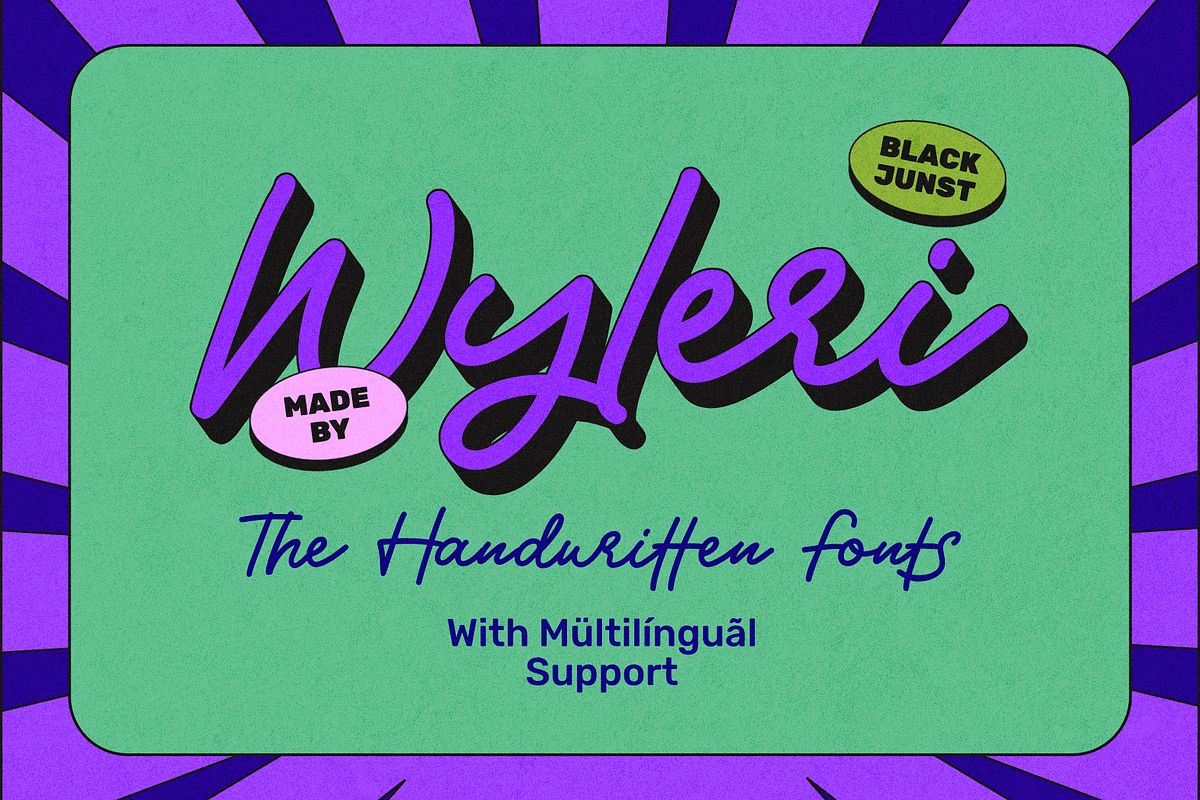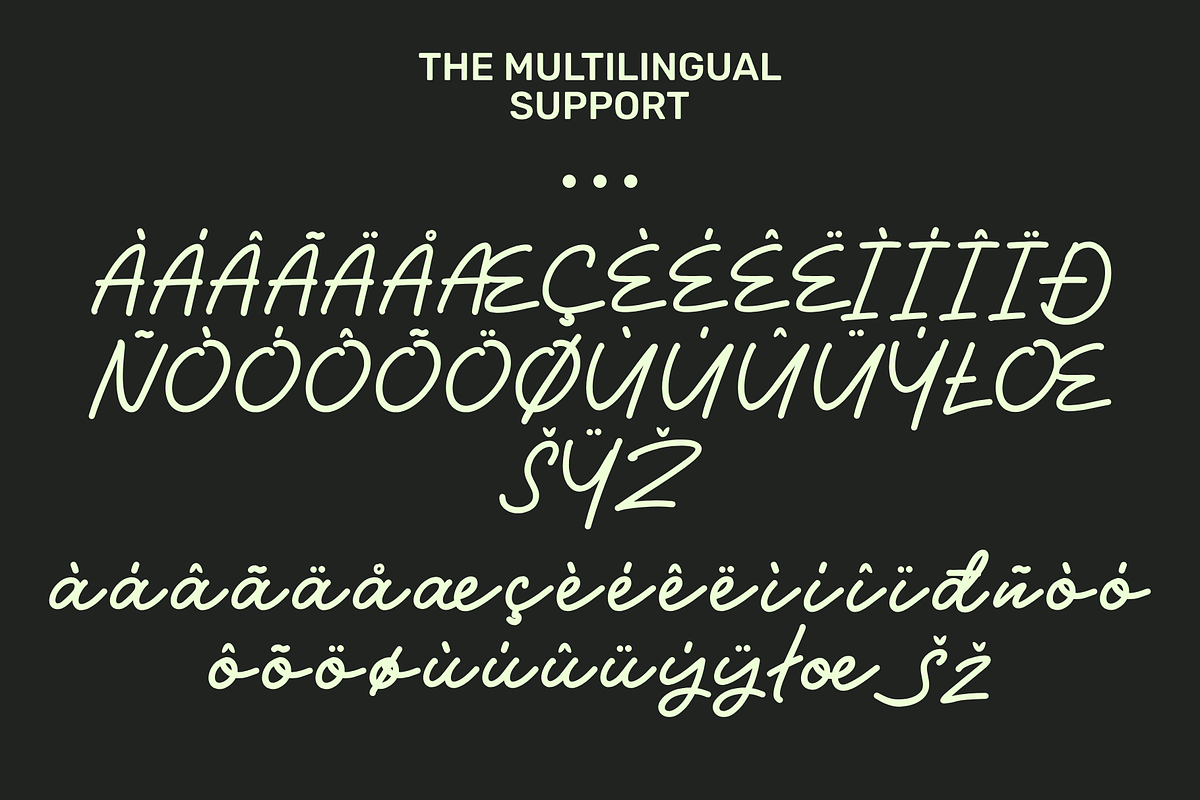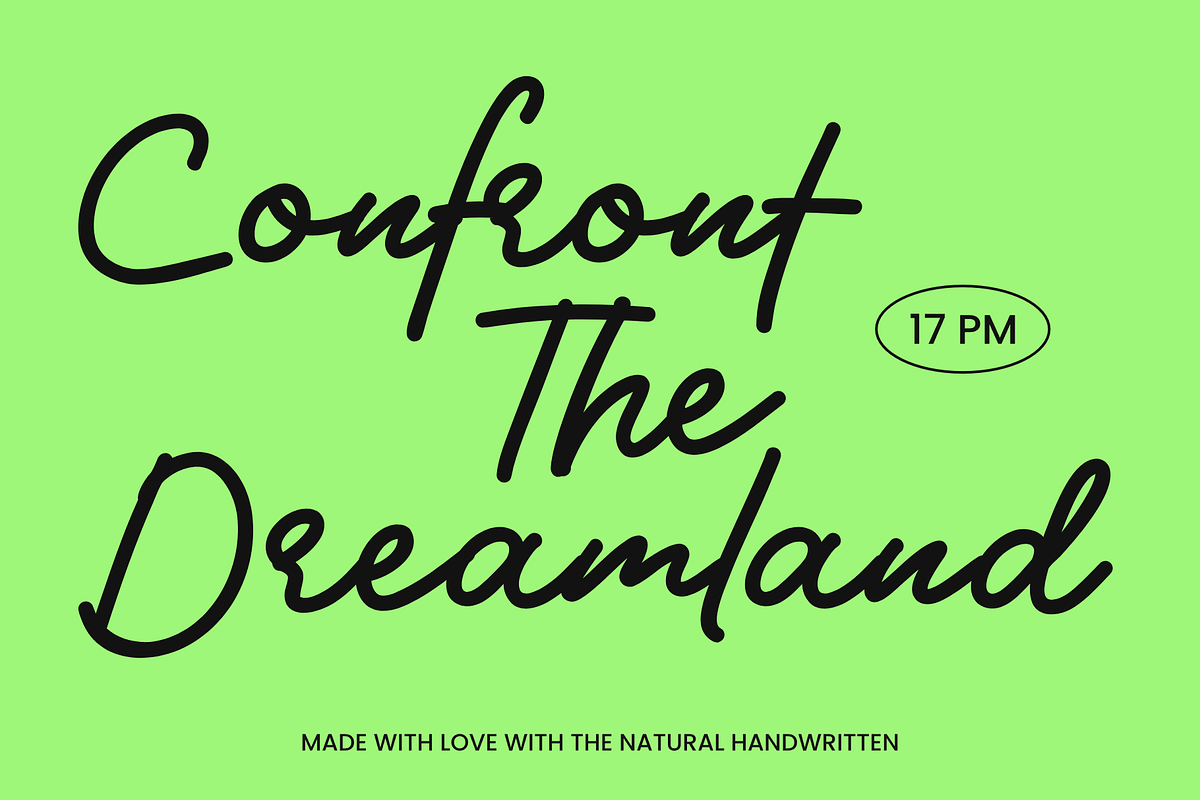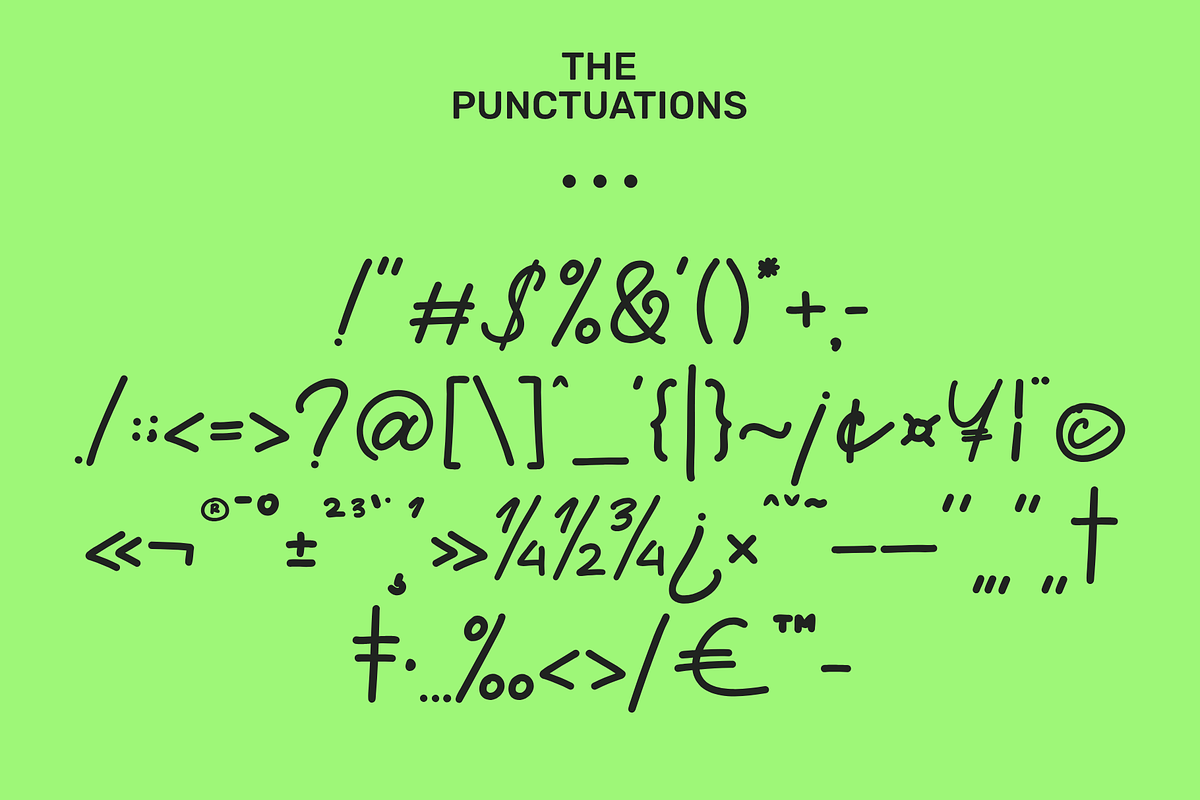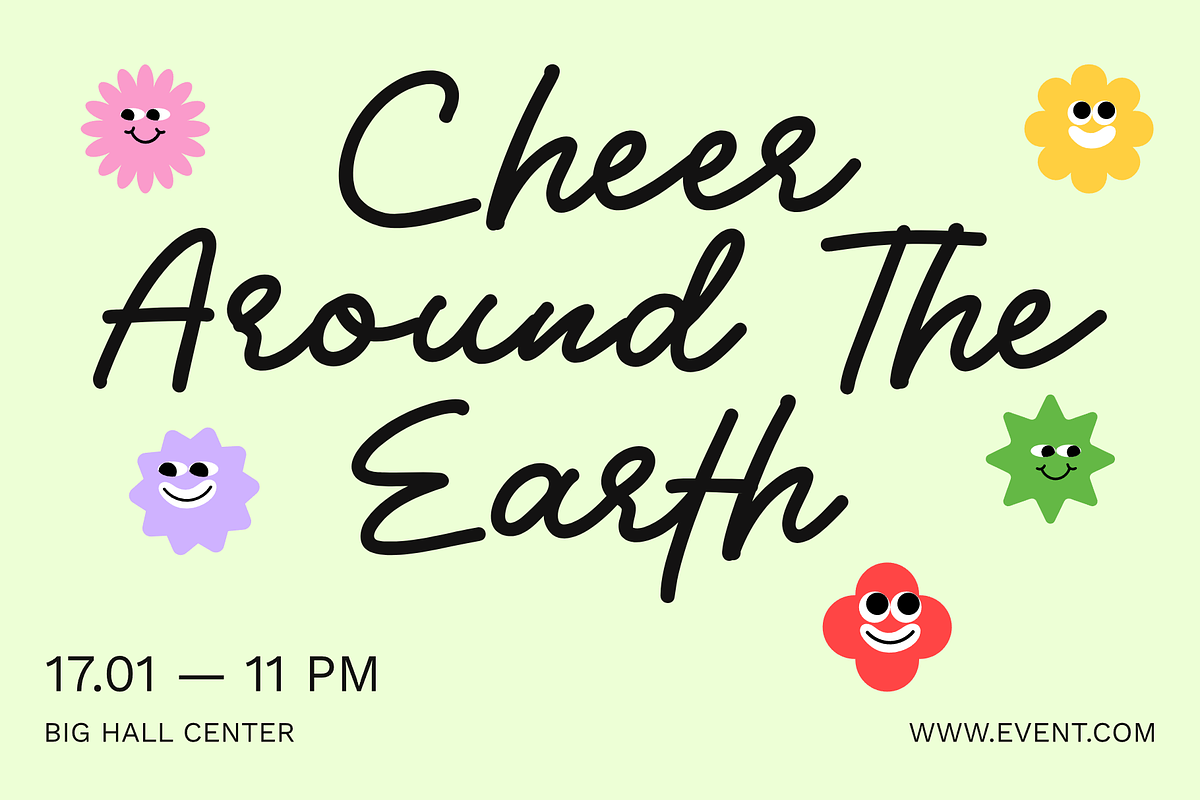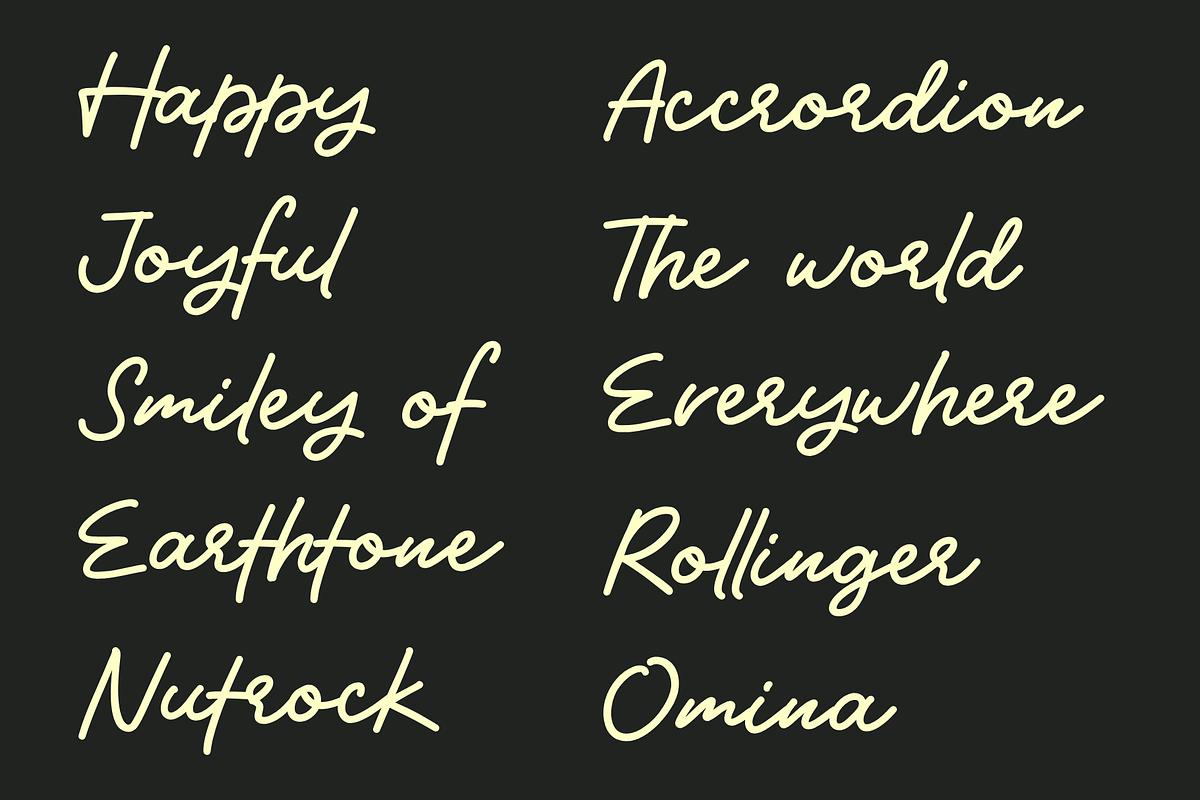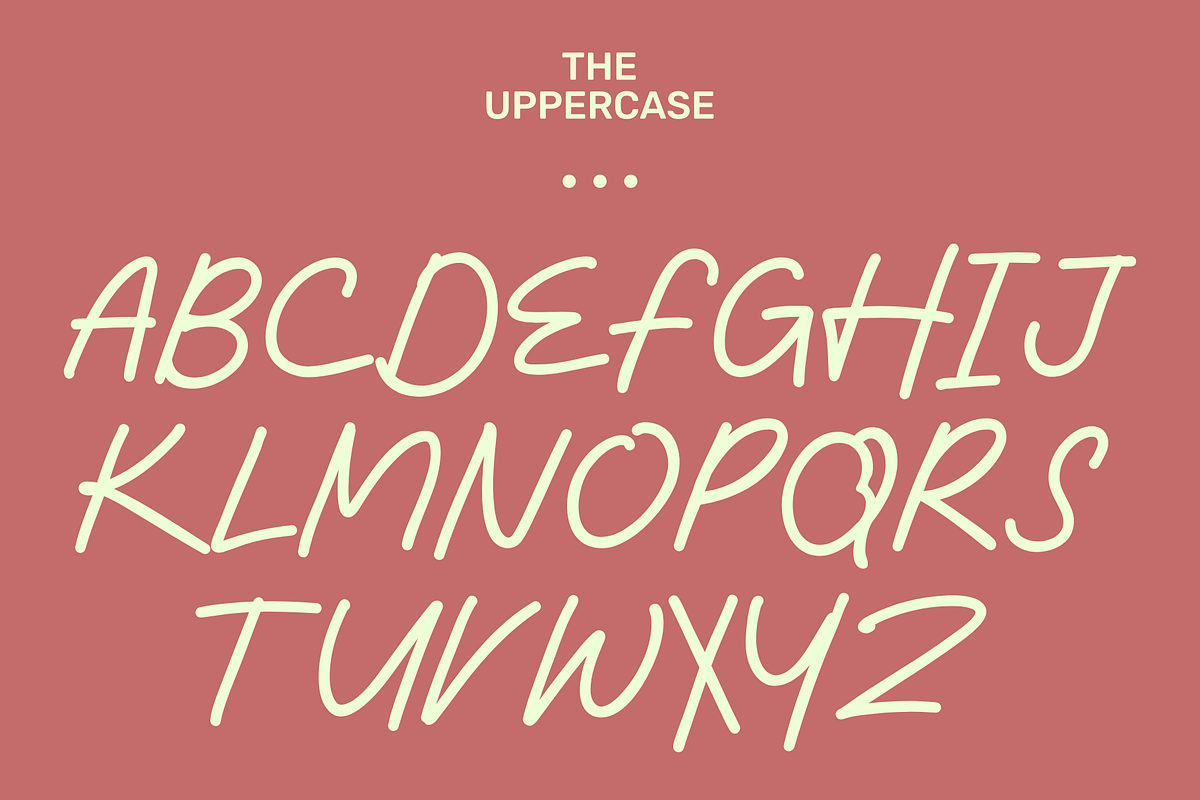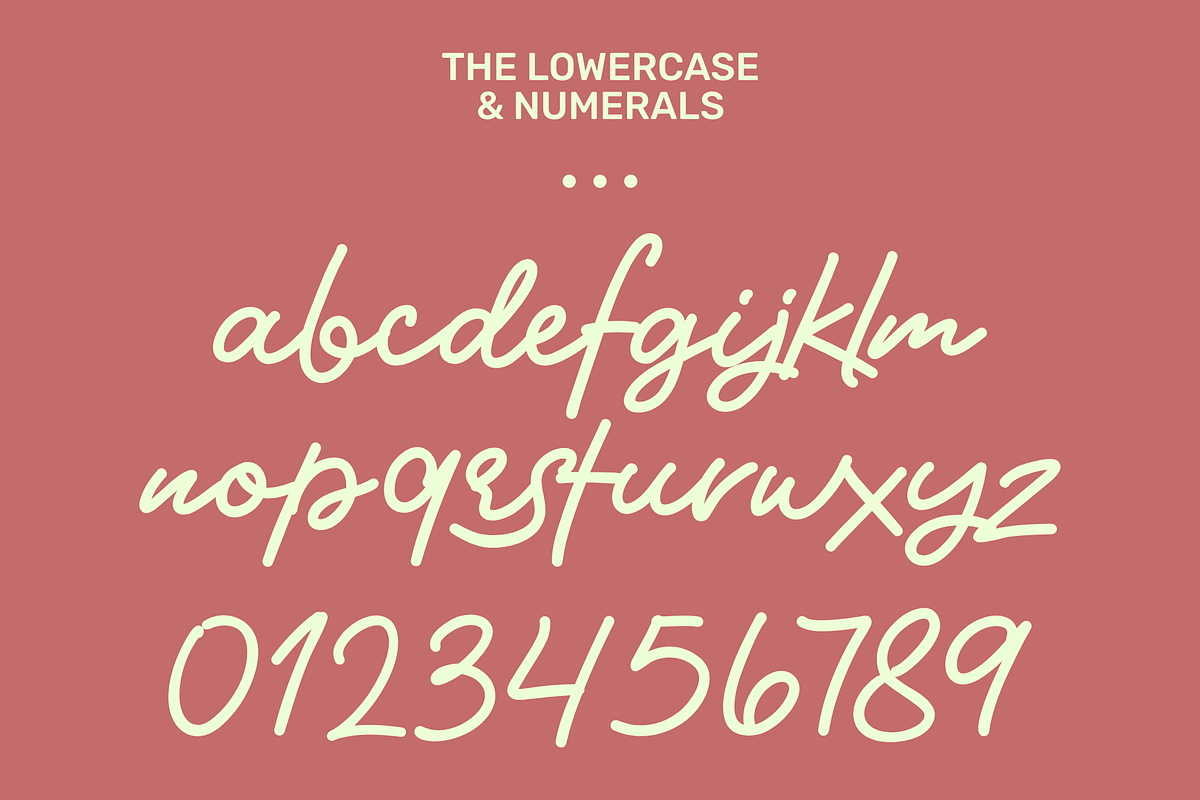
Wyleri Expressive Handwritten Fonts
Wyleri is a bold and expressive handwritten font that brings a fresh retro vibe to your creative projects. With its thick strokes, vibrant shadow style, and smooth curves, Wyleri adds a fun yet confident personality to every word you type.
Perfectly suited for branding, posters, music artwork, merchandise, and social media graphics, Wyleri stands out with a nostalgic feel while remaining modern and versatile. Its clean handmade look makes it easy to read while still being full of character.
Whether you're designing for lifestyle brands, bold headlines, or playful packaging, Wyleri delivers both charm and impact. The font also supports multilingual characters, making it a great choice for international creatives.